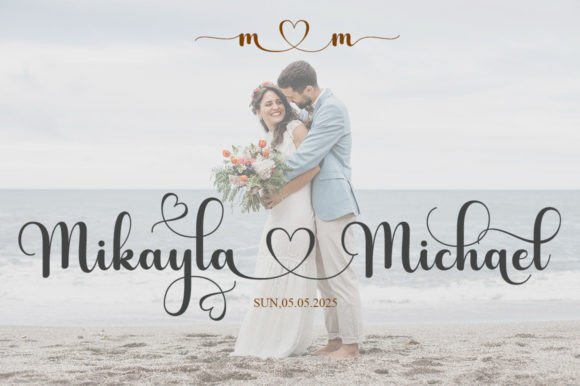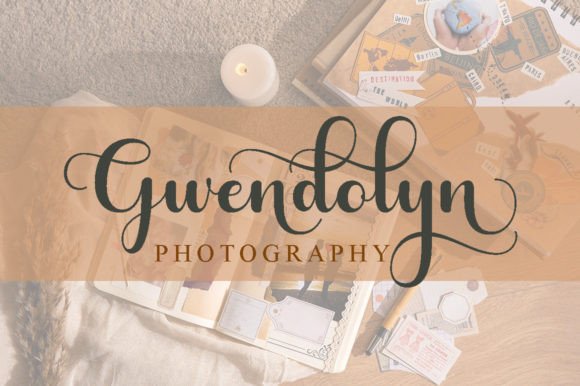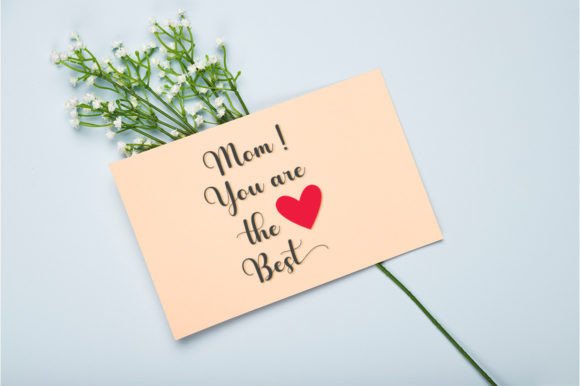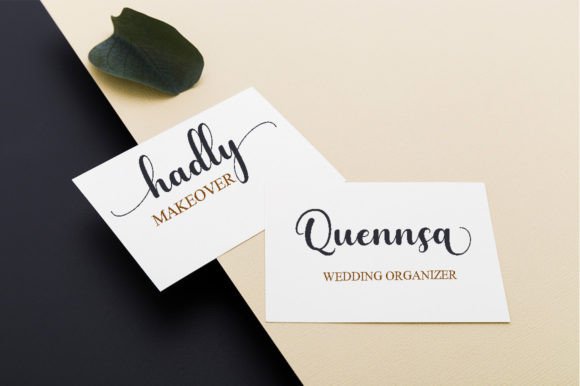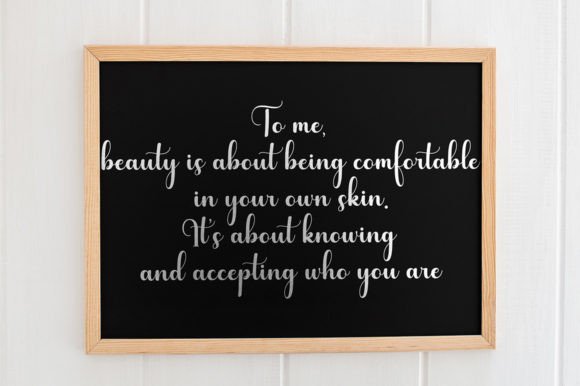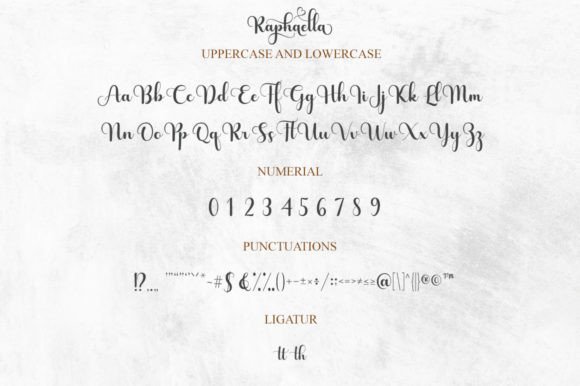
Introduction to Raphaella Font
As a designer, there’s nothing quite like the thrill of seeing your creative vision come to life. But sometimes, the perfect font can be the key to unlocking that magic. For those in search of a high-quality design resource, look no further than the Raphaella Font. This beautifully crafted handwritten font has the potential to elevate your creative projects to new heights.
Imagine the perfect balance of elegance and playfulness, with each letter carefully designed to convey a sense of sophistication and charm. With the Raphaella Font, you’ll have access to a wide range of glyphs and swashes, making it the perfect addition to any design project. Whether you’re working on a free download or a high-end design, this font is sure to impress.
But what really sets the Raphaella Font apart is its transparency – both literally and figuratively. With a transparent background, you can easily layer your design elements without any distractions. And with its PUA encoding, you can access all of the glyphs and swashes with ease, making it a valuable resource for any designer looking to take their work to the next level.
Key Features of Raphaella Font
- High-quality, elegant script font suitable for creative projects and design resources.
- Features a transparent background, making it ideal for overlaying on images or other design elements.
- Designed to add a touch of sophistication and elegance to any creative project, from invitations to branding materials.
- Perfect for designers, artists, and writers looking for a unique and high-quality font to elevate their design resource.
Honest Review: Raphaella Font
As a designer, I’m always on the lookout for high-quality fonts that can elevate my creative projects. The Raphaella Font is one such discovery that caught my attention. Upon downloading and experimenting with it, I found it to be a valuable addition to my design resource library.
- ✨ Unique and elegant design: The Raphaella Font boasts a sophisticated and refined aesthetic that’s perfect for luxury brands, fashion, or high-end products.
- ✨ High-quality rendering: The font renders beautifully, even at larger sizes, making it ideal for use in various design contexts.
- ⚠️ Limited language support: As with many free fonts, the Raphaella Font may not support all languages, which can be a limitation for international design projects.
- ⚠️ Not suitable for all designs: While the font is great for luxury and high-end designs, it may not be the best choice for more casual or playful projects.
Overall, I’m impressed with the Raphaella Font’s design quality and versatility. Its transparent background and free download make it a valuable resource for designers working on creative projects. While it may have some limitations, I believe it’s a great addition to any design library.
For the best results, use Raphaella Font on a transparent background to create a sleek and modern look. Experiment with different font sizes and styles to find the perfect combination for your design project. You can also pair Raphaella Font with other fonts to create a unique and creative design.
Common Use Cases for Raphaella Font
Raphaella Font is suitable for a wide range of creative projects, including logos, business cards, social media graphics, and presentations. Its high-quality design and transparent background make it an excellent choice for designers looking for a versatile and stylish font.